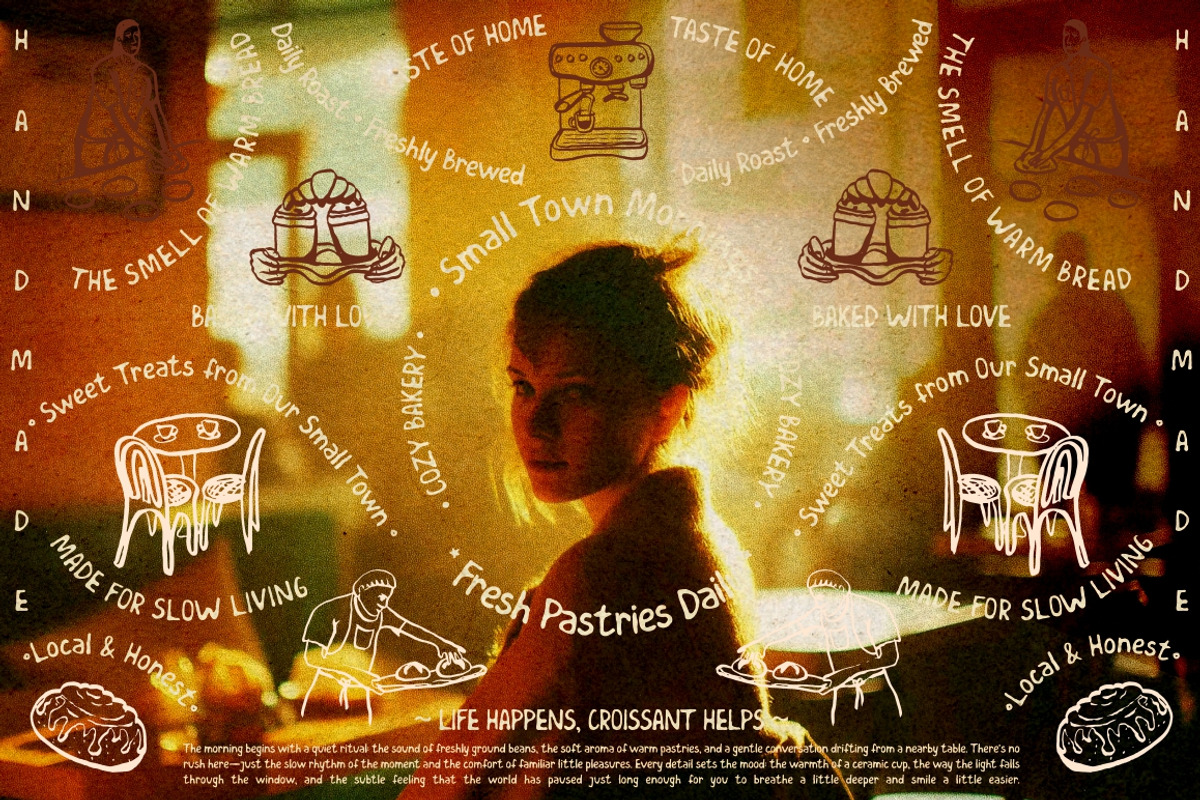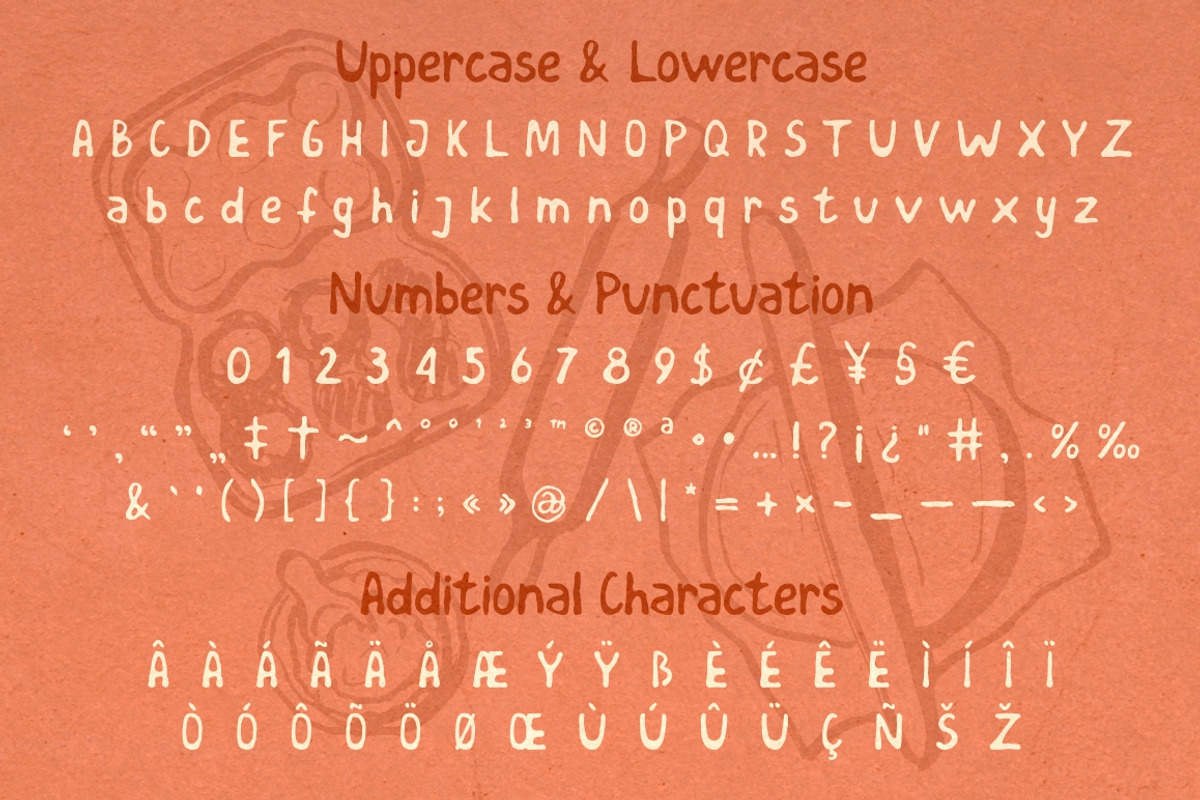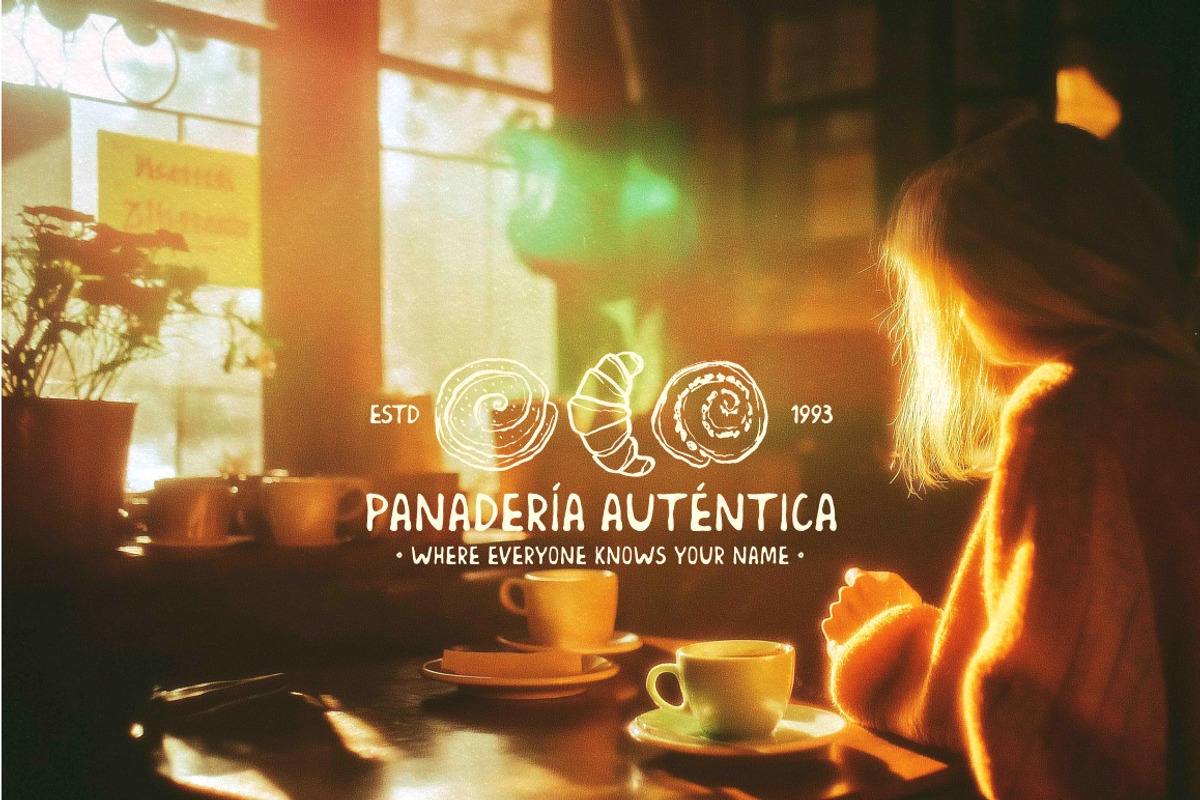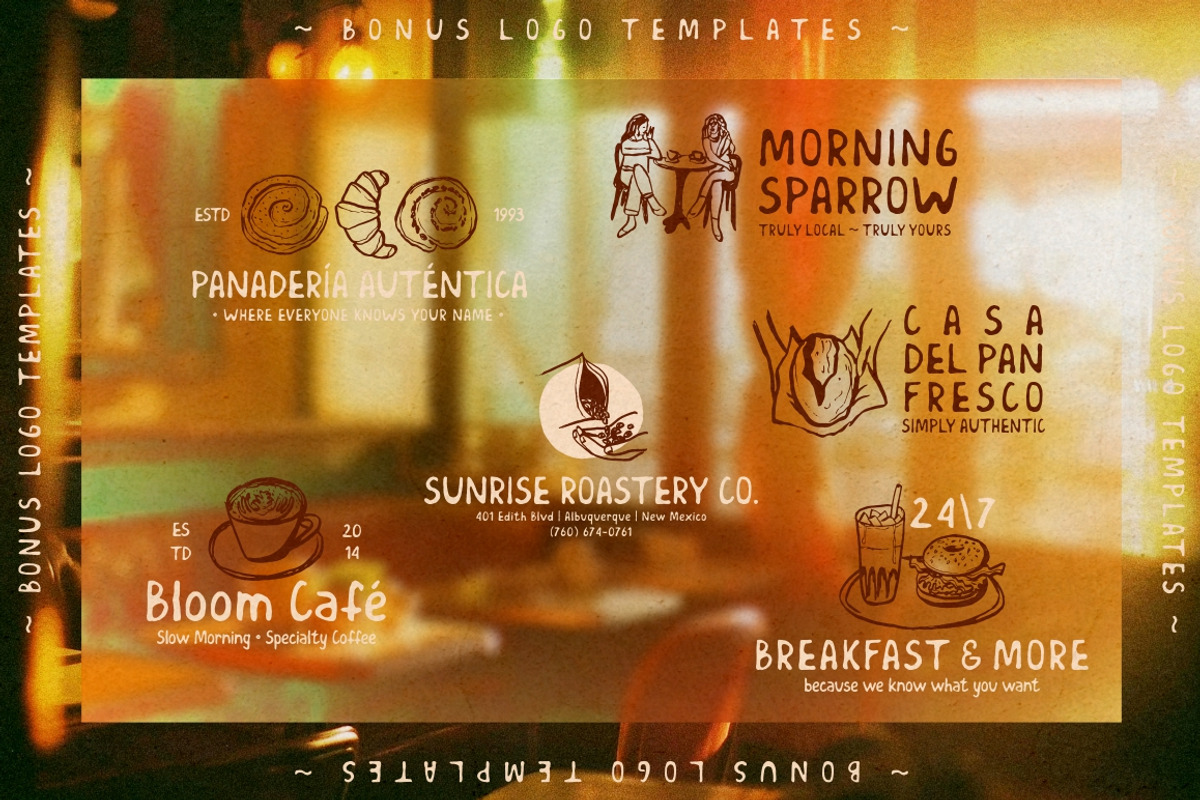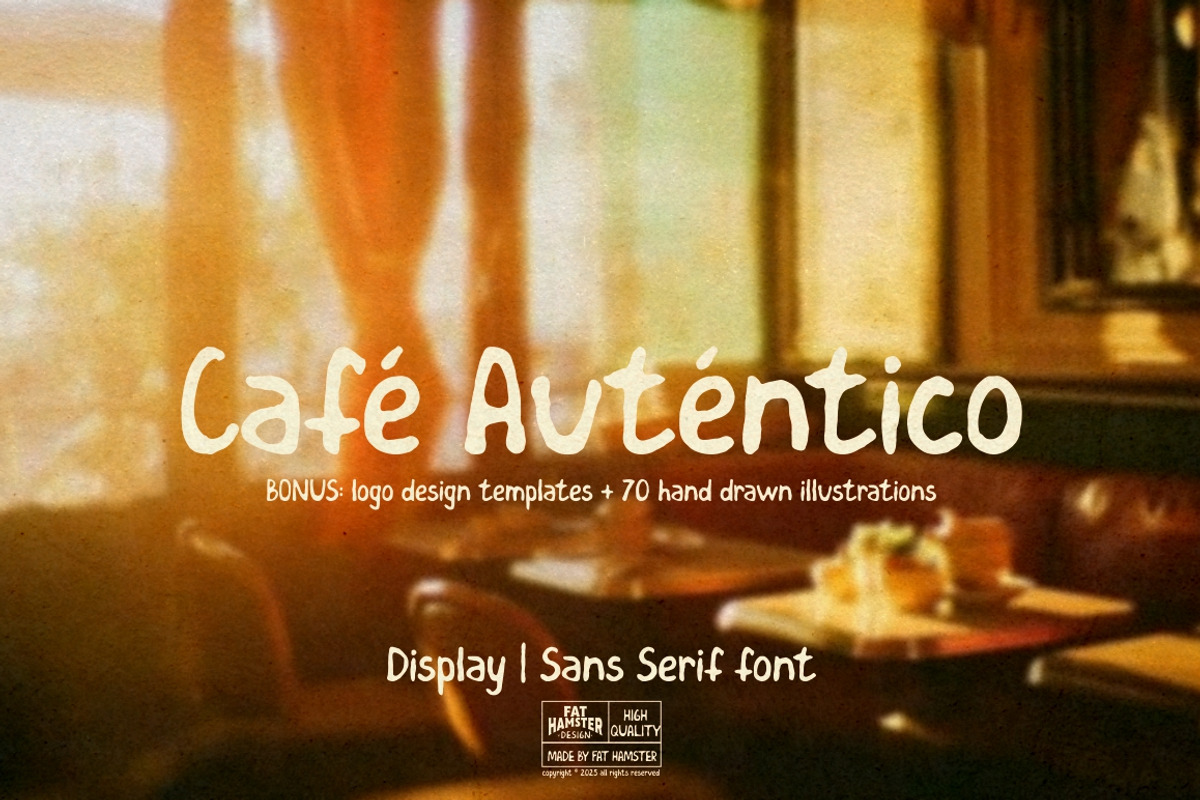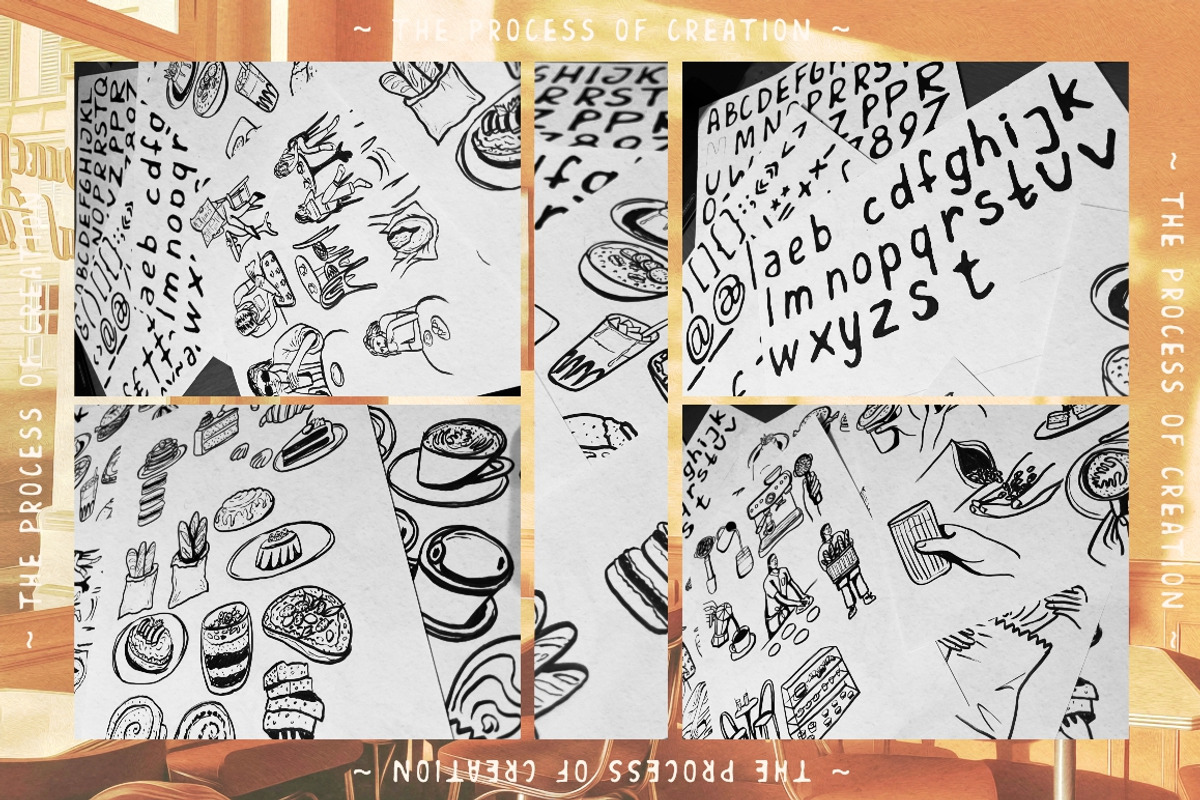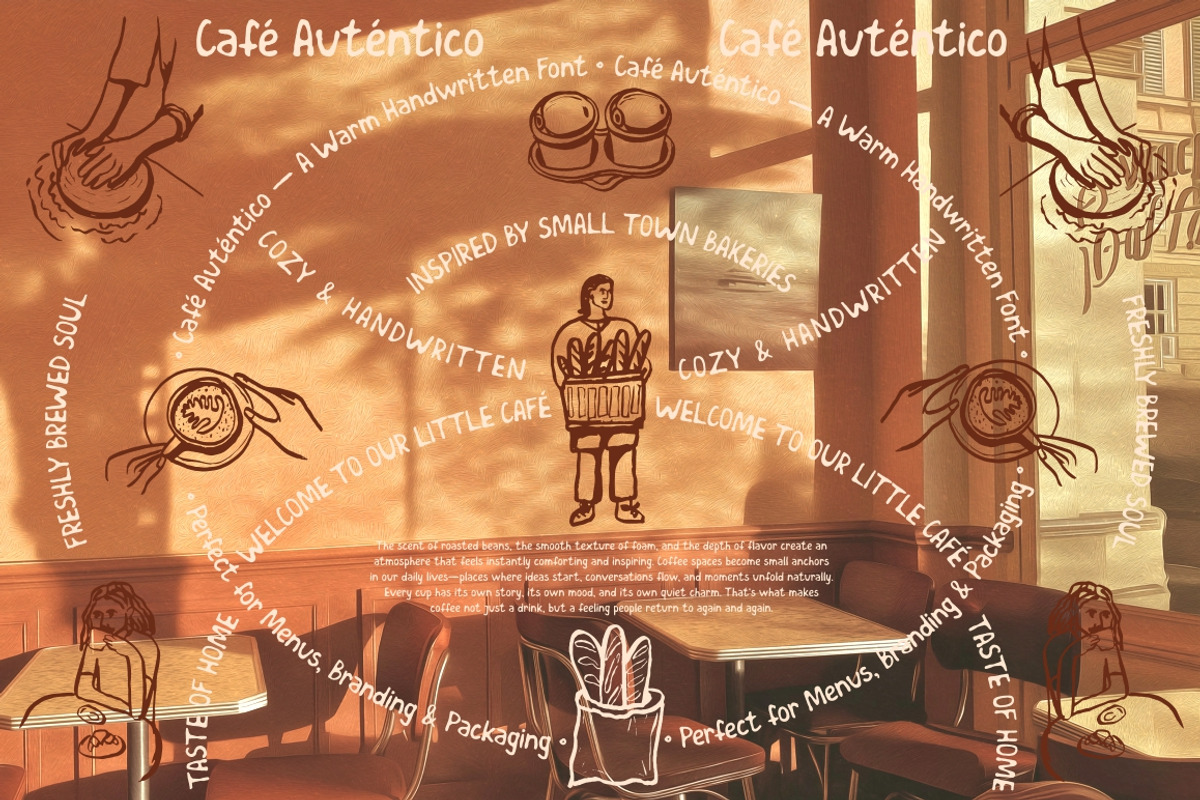
Café Auténtico handwritten font
Café Auténtico – Handwritten Display Font for Branding & Logos
Café Auténtico is a warm and expressive handwritten display font inspired by cozy coffee shops, artisan bakeries, and small local brands. This font brings a natural, human touch to your designs while remaining highly readable and versatile. Designed especially for branding projects, Café Auténtico works perfectly for logos, menus, packaging, posters, and social media visuals where authenticity and character matter. If you’re looking for a handwritten font for logos and branding that feels warm, personal and authentic, Café Auténtico is a perfect choice for creative professionals and small businesses.
Font features
Handwritten display style
Organic, slightly irregular letterforms
Friendly and natural look
Easy to read at large and medium sizes
Great balance between personality and usability
Perfect for
Coffee shop & café branding
Logo design & brand identity
Restaurant and menu design
Food & beverage packaging
Posters, flyers & signage
Small business branding